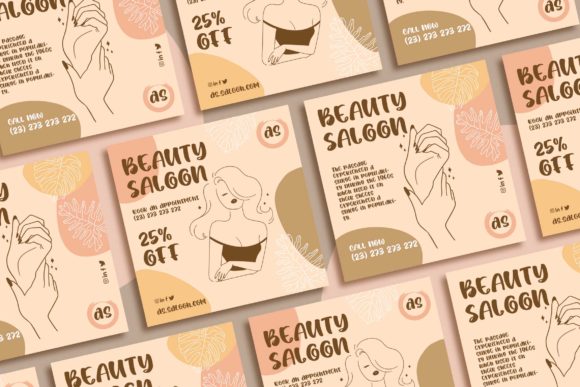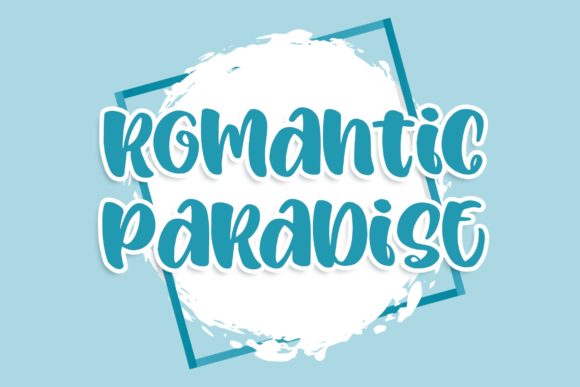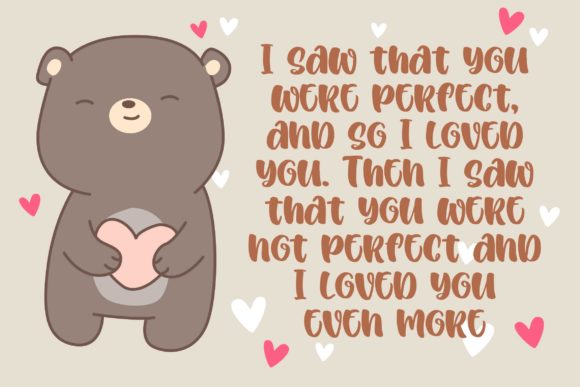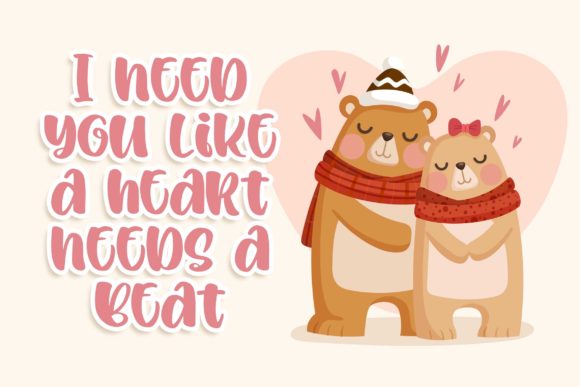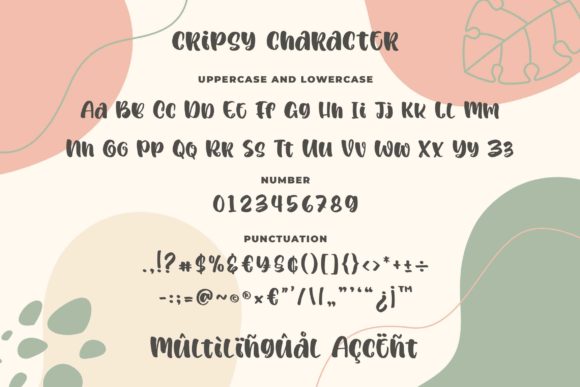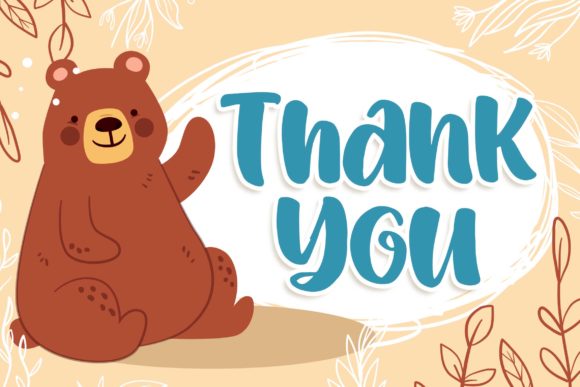
Cripsy Font: The Ultimate Choice for Fun and Playful Designs
Are you a designer or crafter looking for a font that embodies playfulness and authenticity? Look no further than Cripsy Font! This cute and fun display font is perfect for any children’s activity or school project, and is sure to bring a smile to anyone’s face. In this article, we’ll take a closer look at Cripsy Font, its features, and how you can use it to make your designs come alive.
What is Cripsy Font?
Cripsy Font is a chunky lettered font that is designed to add a touch of playfulness and fun to your designs. Its unique and quirky style makes it perfect for a variety of projects, from children’s activity sheets to school posters, and even social media graphics. With Cripsy Font, you can add a dash of personality to your designs and make them stand out from the crowd.
Key Features of Cripsy Font
So, what makes Cripsy Font so special? Here are just a few of its key features:
• Cute and Fun Design: Cripsy Font has a playful and whimsical design that is sure to delight kids and adults alike.
• Chunky Lettering: The font features chunky lettering that is easy to read and adds a touch of personality to your designs.
• Playful and Authentic: Cripsy Font embodies playfulness and authenticity, making it perfect for projects that require a fun and carefree vibe.
• Versatile: Cripsy Font can be used for a variety of projects, from digital designs to print materials.
How to Use Cripsy Font in Your Designs
Using Cripsy Font in your designs is easy! Here are a few tips to get you started:
• Pair it with Other Fonts: Cripsy Font pairs well with other fonts, such as sans-serif fonts, to create a fun and playful contrast.
• Use it for Headings: Cripsy Font is perfect for headings and titles, where you want to add a touch of personality and whimsy.
• Add it to Your Digital Designs: Cripsy Font can be used in digital designs, such as social media graphics, blog posts, and email newsletters.
• Use it for Print Materials: Cripsy Font can also be used for print materials, such as posters, flyers, and brochures.
Benefits of Using Cripsy Font
So, why should you use Cripsy Font in your designs? Here are just a few benefits:
• Adds Personality to Your Designs: Cripsy Font adds a touch of personality and whimsy to your designs, making them more engaging and fun.
• Perfect for Children’s Projects: Cripsy Font is perfect for children’s projects, such as activity sheets, coloring books, and educational materials.
• Increases Engagement: Cripsy Font can help increase engagement and interaction with your designs, whether it’s a social media graphic or a print poster.
In conclusion, Cripsy Font is a fun and playful display font that is perfect for designers and crafters looking to add a touch of personality to their designs. With its chunky lettering and whimsical design, Cripsy Font is sure to bring a smile to anyone’s face. Whether you’re working on a children’s project or a school activity, Cripsy Font is the ultimate choice for fun and playful designs.